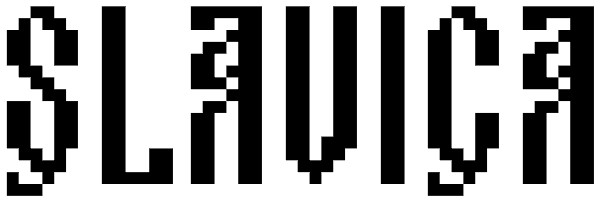
Slavica
Slavica is a modern pixel version of old Slavonic fonts.
Slavica Pixel
Slavica Pixel Font
Slavica
Slavica Font
Slavica Dots
Slavica Dots Font
Slavica Cross
Slavica Cross Font
Slavica Rounded
Slavica Rounded Font
Slavica Mix
Slavica Mix Font